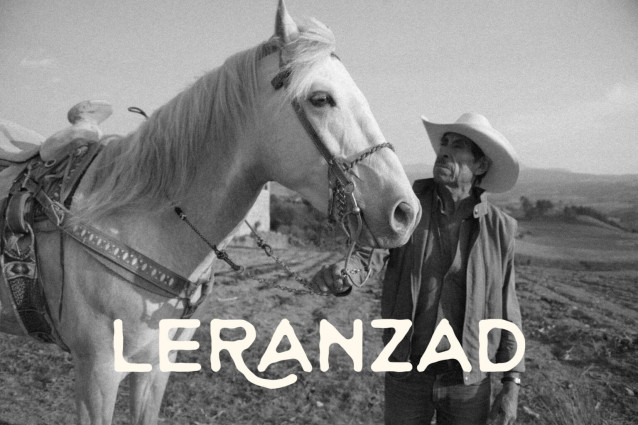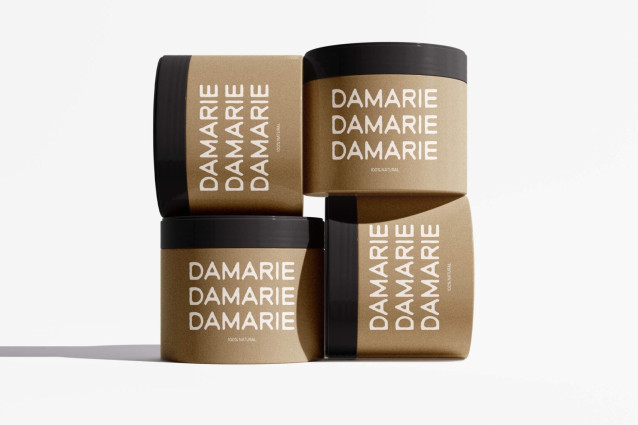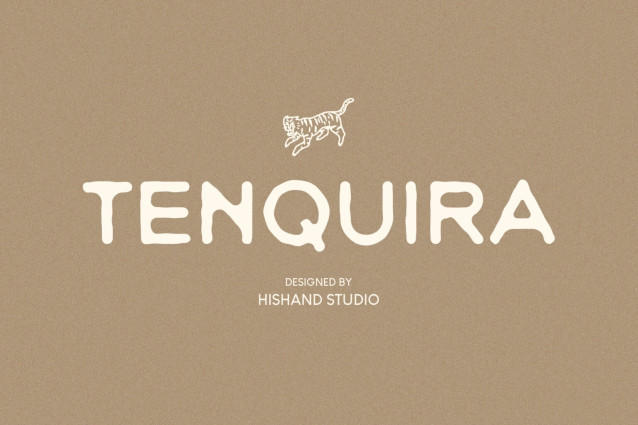
Tenquira Font
Tenquira Font is a hand-drawn sans serif with warmth in every curve. Its letterforms feel intentional rather than perfected, with subtle imperfections in stroke weight and shape giving it the texture of real handwriting, while careful spacing and rhythm keep it clean enough for serious use. This is a typeface for brands that want to feel human, not manufactured.
Each letter carries small variations that mimic natural inconsistency, slightly uneven terminals, organic curves, a touch of looseness in the joins. Nothing about it feels mechanical or repeated. The result is a font that reads as authentic and approachable, with an aesthetic quality that feels effortless rather than overworked. It has the kind of charm that comes from a steady hand, not a grid.
What makes Tenquira work is the balance it strikes. Hand-drawn type can easily tip into novelty or feel too loose to trust for real design work, but Tenquira avoids that trap. The looseness is controlled. The warmth is deliberate. Every curve and terminal was shaped with enough consistency to hold a layout together, even as each character keeps its own small personality. It’s expressive without being chaotic, casual without looking careless.
This balance is what gives Tenquira its range. It carries the same ease whether it’s set large on a label or small inside a paragraph, and it holds its character at any size without losing legibility. That kind of flexibility is rare in hand-drawn typefaces, many of which only work well in display sizes.
Tenquira fits beautifully on packaging, branding, editorial layouts, and any project that calls for softness without losing structure. It feels equally at home on a coffee bag, a skincare label, an invitation, or a magazine spread. It’s versatile across display and text use, equally at home in a logo lockup or a paragraph of body copy, giving designers a typeface that can carry both the loud moments and the quiet ones.
In the end, Tenquira Hand-Drawn Sans Serif is built for brands that want to feel approachable without losing credibility, natural without losing precision. It’s a typeface made for people, drawn by hand, and shaped to feel just as comfortable in a quiet sentence as it does in a bold headline.